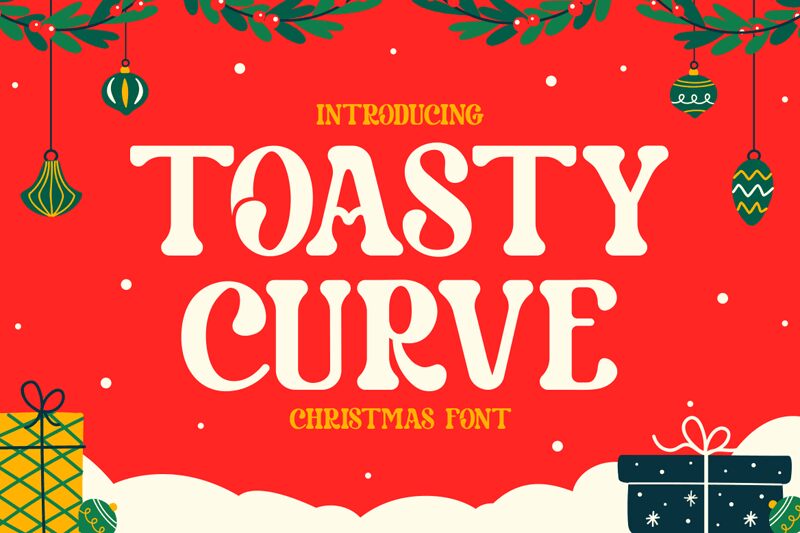
Toasty Curve font family by PutraCetol Studio is a free decorative and whimsical typeface that excites and invites. Consisting of 2 font styles, this bold font is cheerful and vibrant in spirit with its friendly and warm characters that shine both in their retro and festive features. Toasty Curve is, therefore, a well-rounded holiday font that captures the breeze of minimalism decorated with its artful letters.
If you want something truly noteworthy, Toasty Curve will be the best choice for your designs! True to its spirit and all the wonders it which it holds, it shares suitable mental images for postcards, invitations, social media posts, digital drawings, websites, branding design, etc. All of which can be elevated with a more personal presence using a free font, one of the available styles.